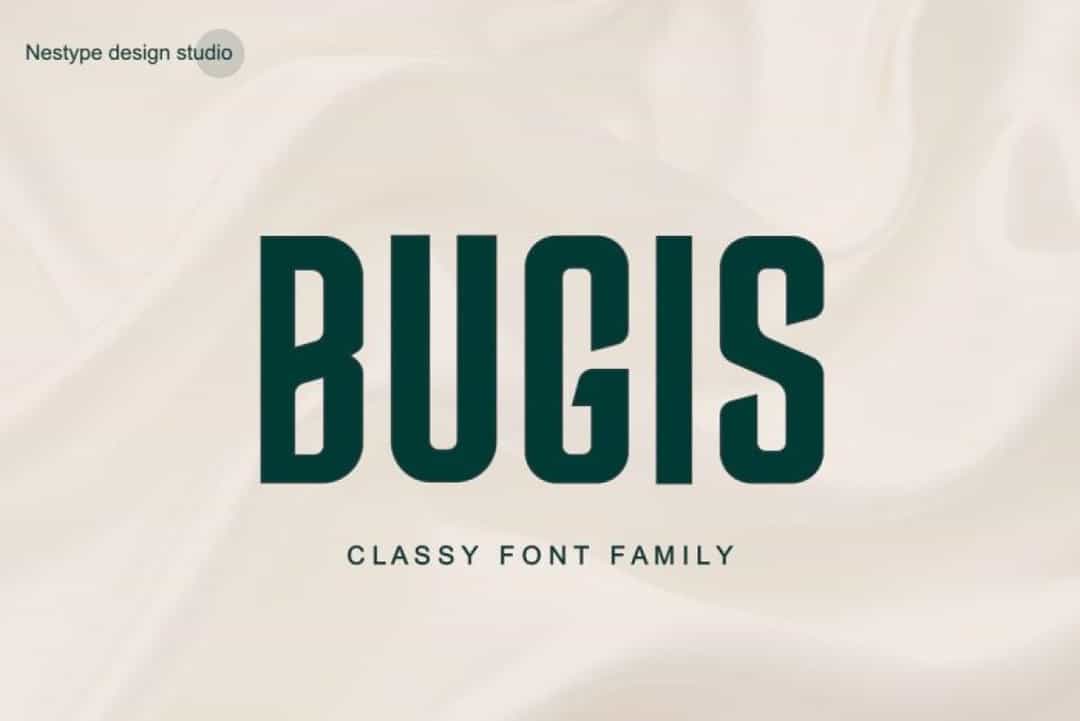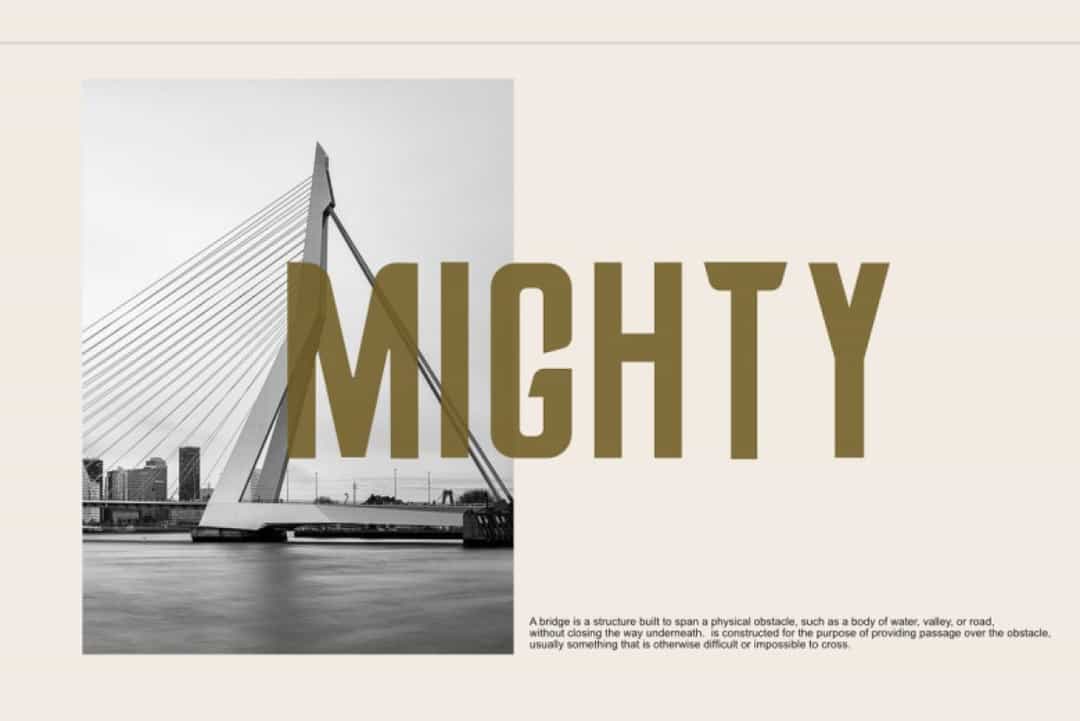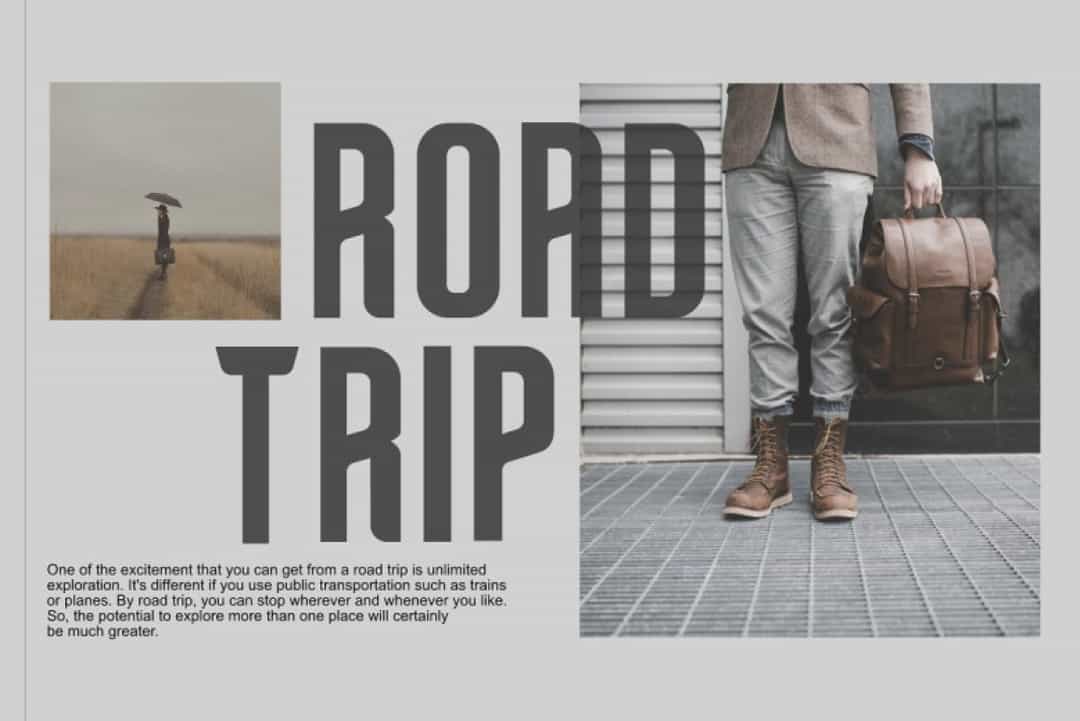
Bugis Font is a multilingual vintage classic sans serif font designed with versatility in mind, working beautifully at both large and small sizes. Ideal for logo design, editorials, product packaging and magazine headlines it also creates striking text over any background image.